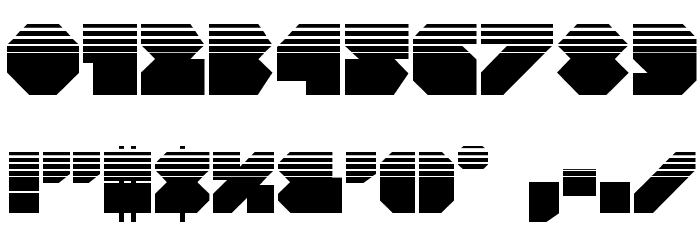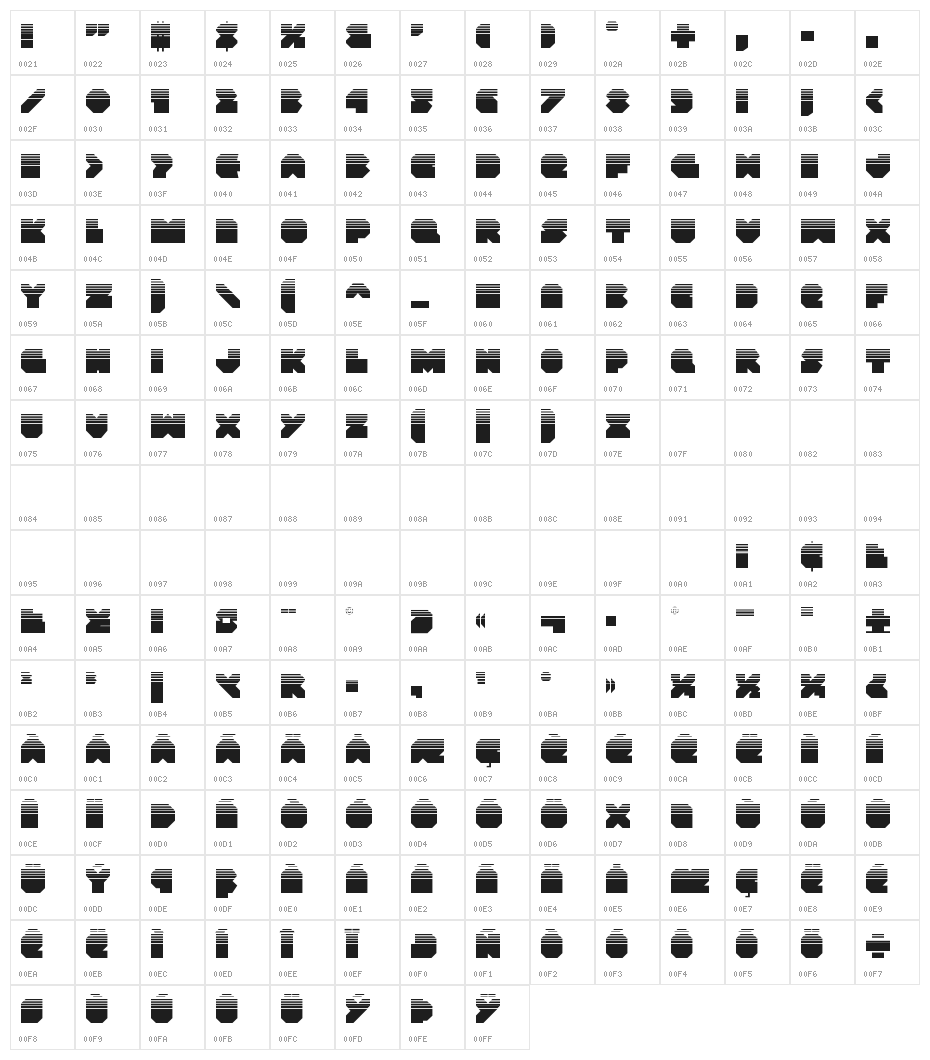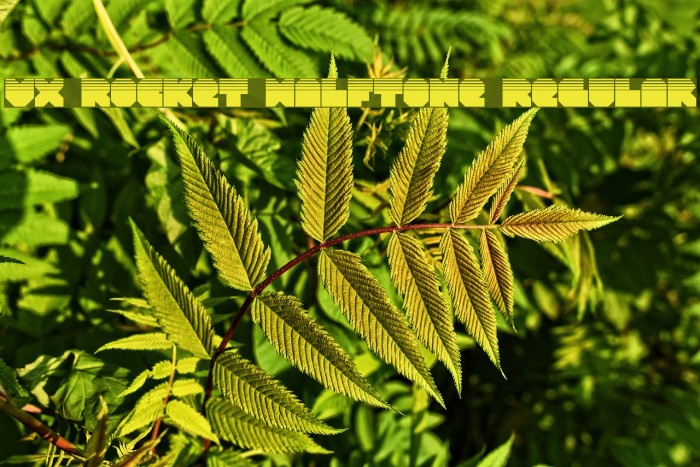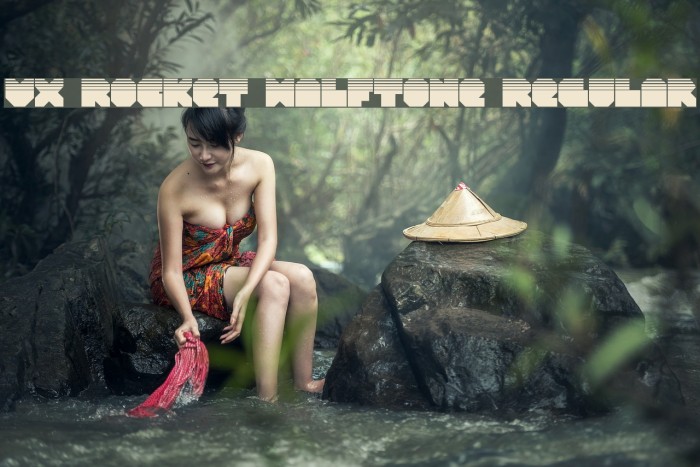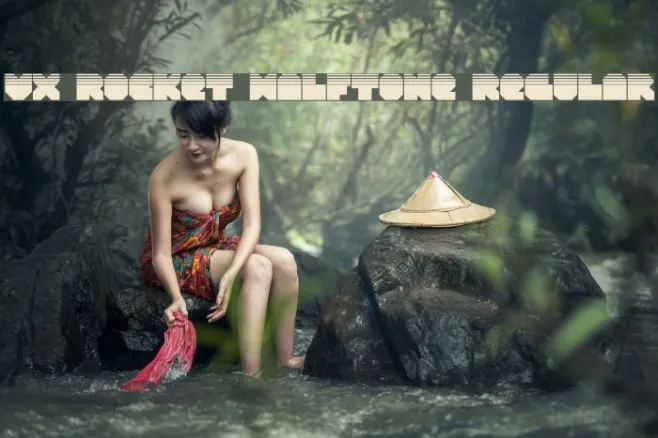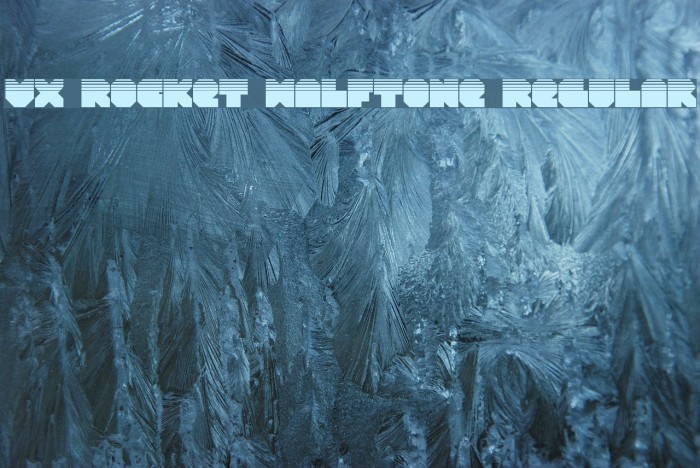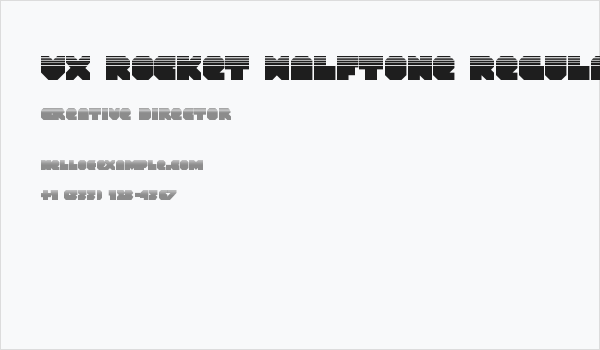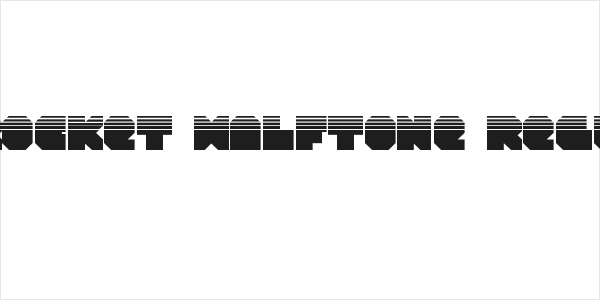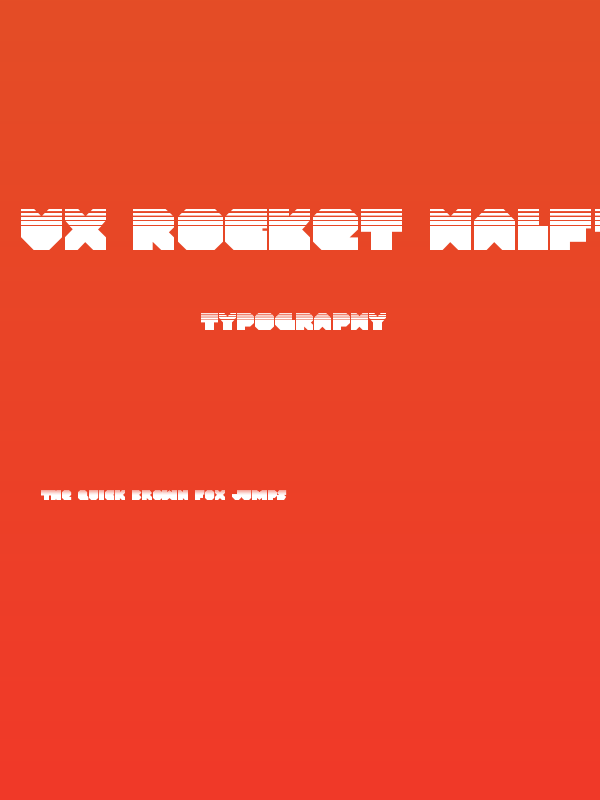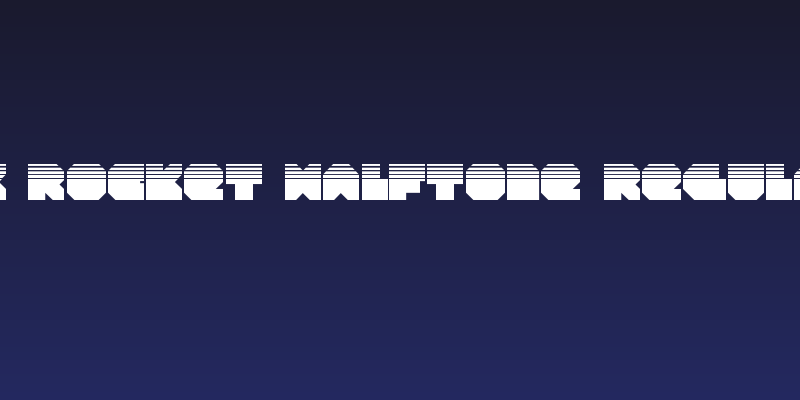
VX Rocket Halftone Regular Font
VX Rocket Halftone Regular Description
This font features a bold, geometric design with a halftone effect that creates a sense of movement and modernity. The characters are constructed with horizontal lines that give a layered, three-dimensional appearance. The uppercase and lowercase letters maintain a consistent style, with sharp angles and a futuristic aesthetic. The numbers and special characters follow the same design principles, ensuring uniformity across all elements. This font's unique style makes it ideal for projects that require a striking and contemporary look.
| Proposed Projects | Ideal for branding, posters, album covers, and digital media that require a modern and eye-catching design. |